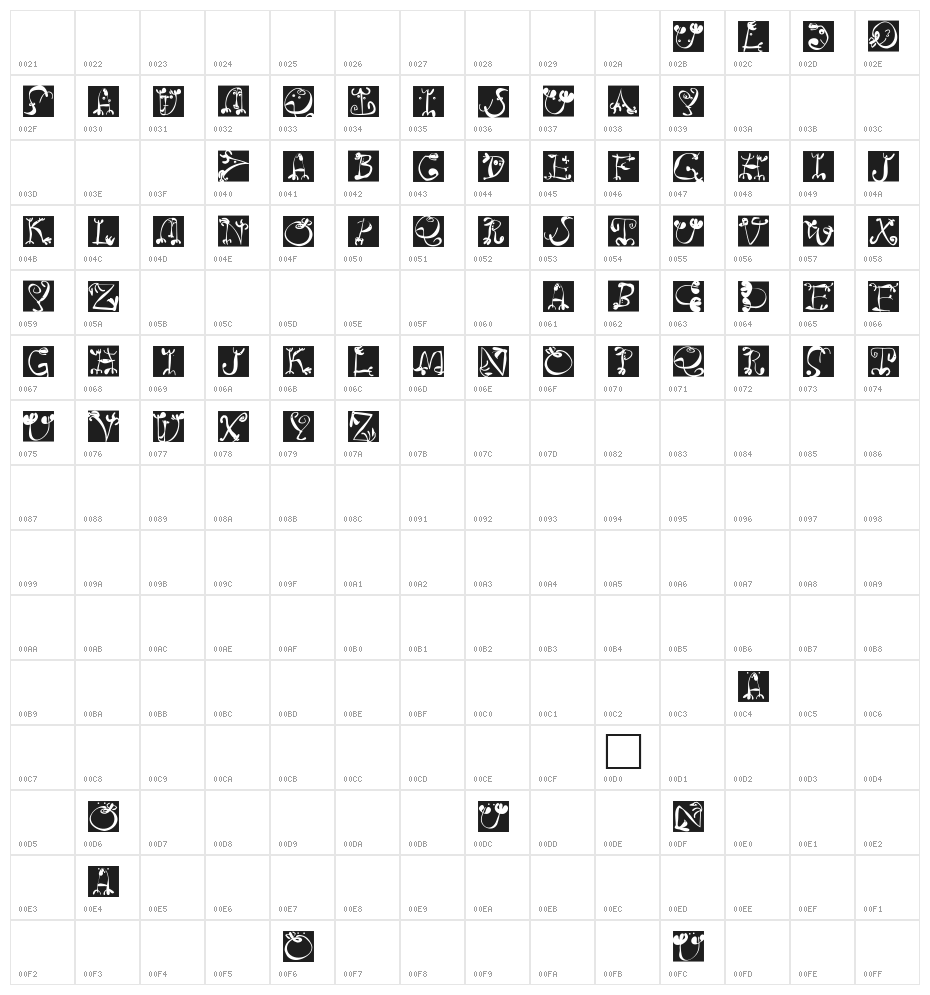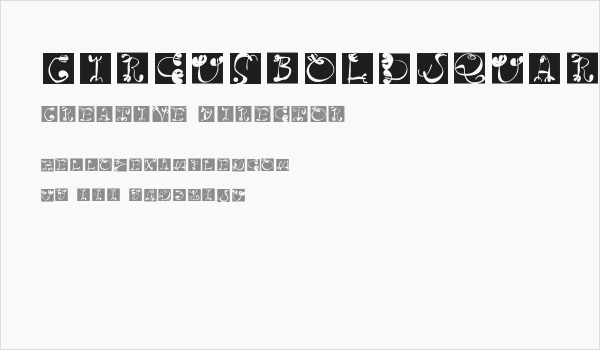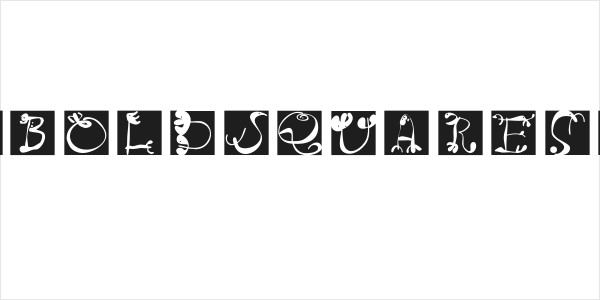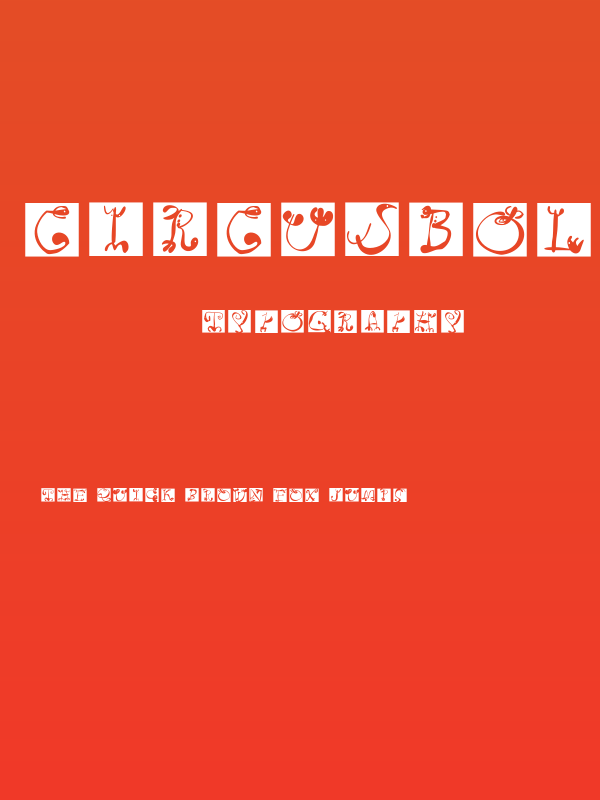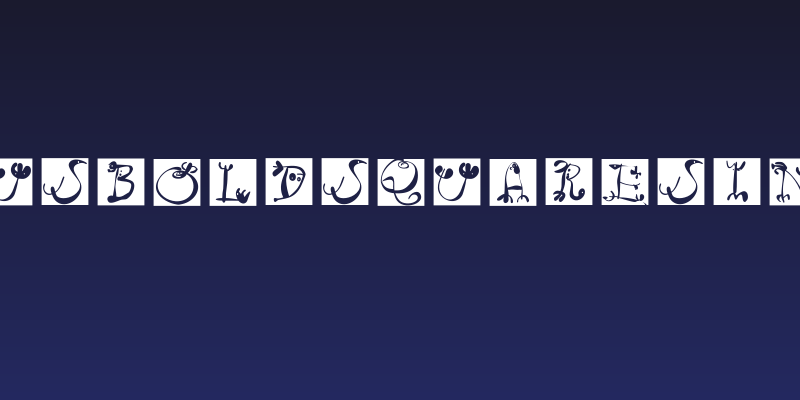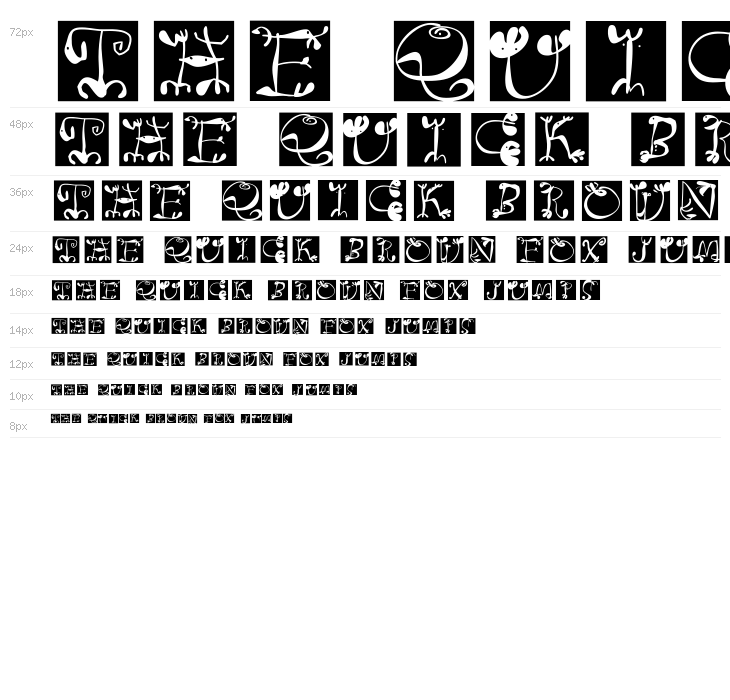
CircusBoldSquaresInvers Font
CircusBoldSquaresInvers Description
This font features a whimsical and playful design, with each character enclosed in a square and adorned with unique, decorative elements. The letters are bold and have a hand-drawn quality, with intricate details that give them a lively and animated appearance. The style is reminiscent of circus or carnival themes, with a sense of fun and creativity. The characters are highly stylized, with exaggerated curves and loops that add to the overall charm. This font is perfect for projects that require a touch of humor and artistic flair.
Proposed ProjectsIdeal for children's books, playful posters, circus-themed events, and creative branding projects.